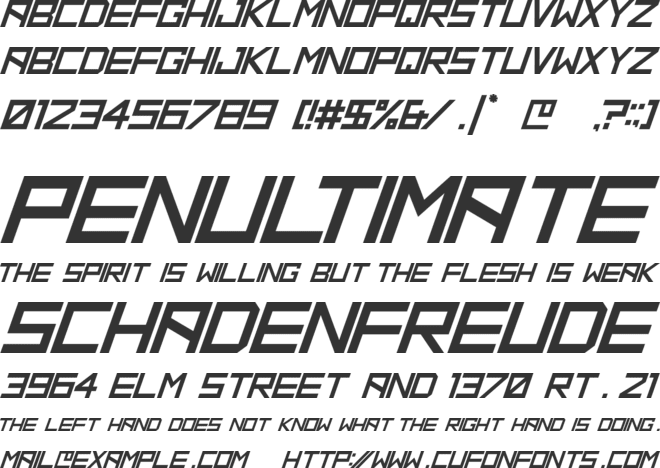
HBM Ridge Font Family
Big Minion
RIDGE is a square, edgy, sporty font family, perfectly suited to gyms, sports events/products and sports lovers alike. It features 3 distinct styles; Regular, Sliced and Distorted so no matter what the challenge is, RIDGE can handle it!
- Big Minion